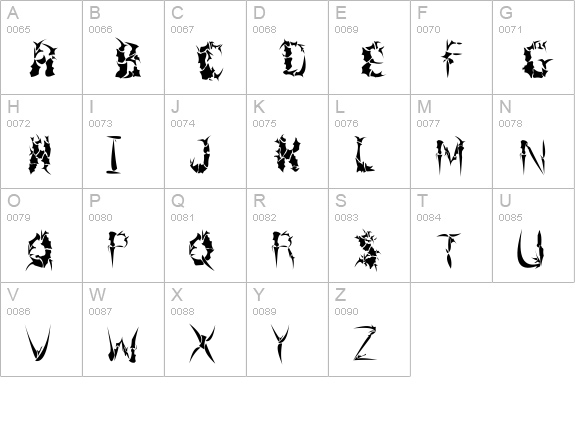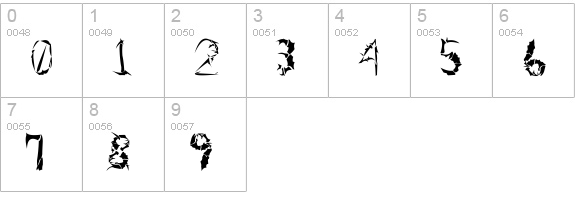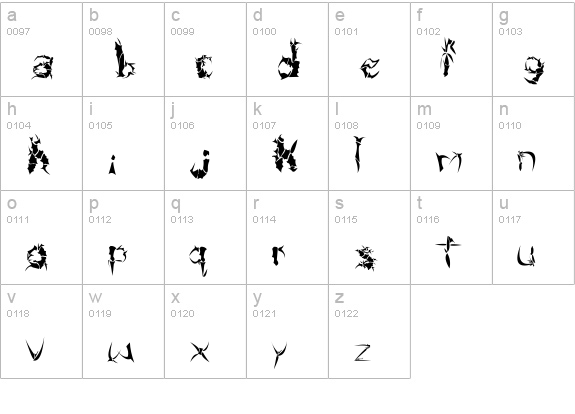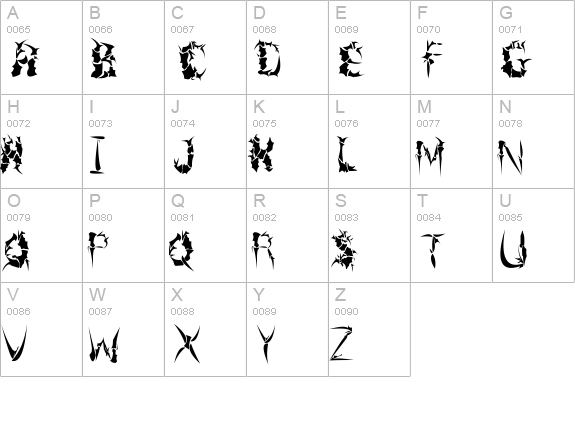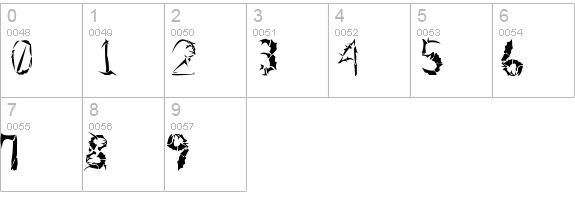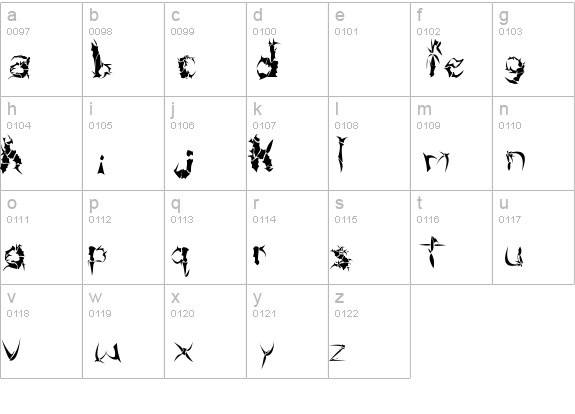
Beneath The Remains font is a striking and bold typeface that exudes strength and character. Inspired by the rugged and raw energy of heavy metal music, this font features sharp angles and intricate details that make it stand out from the crowd. With its edgy and powerful aesthetic, Beneath The Remains font is perfect for creating eye-catching designs that make a statement. And the best part? Beneath The Remains font is free to download at FontsMarket.com! Whether you're working on a poster, album cover, or branding project, this font will add a touch of intensity and attitude to your designs. Don't miss out on this unique and dynamic typeface - download Beneath The Remains font today and unleash your creativity!